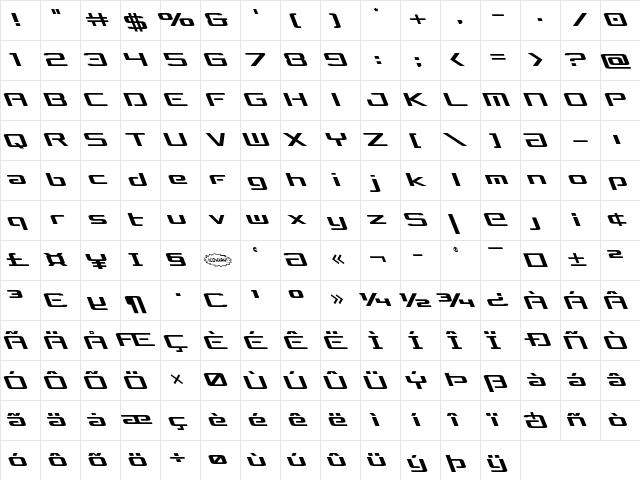
Concielian Break Leftalic Italic
Design Context for Concielian Break Leftalic Typeface
Concielian Break Leftalic is a composed and adaptable typeface that performs quietly and consistently across a wide range of design contexts. The slanted form adds forward momentum and visual energy.